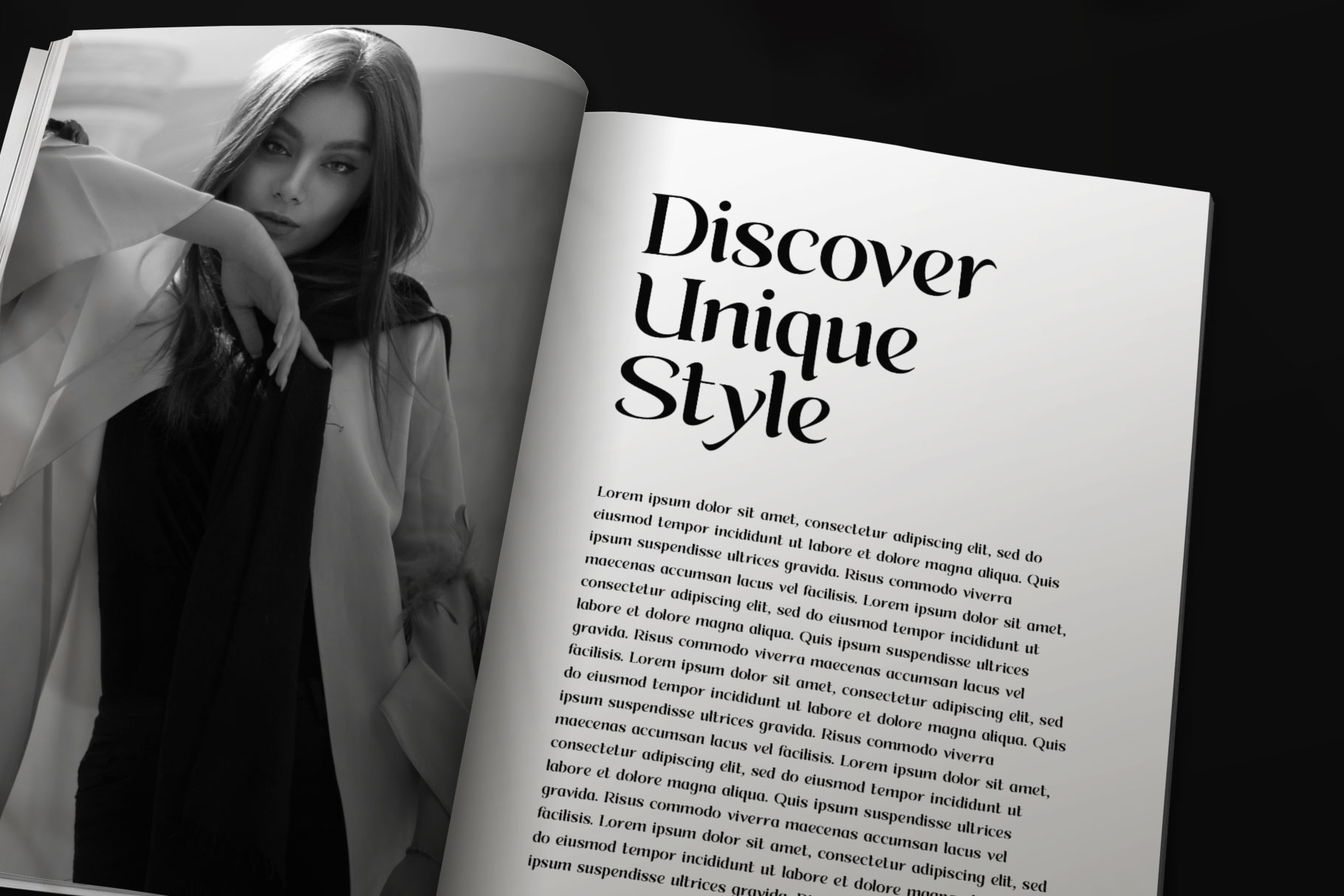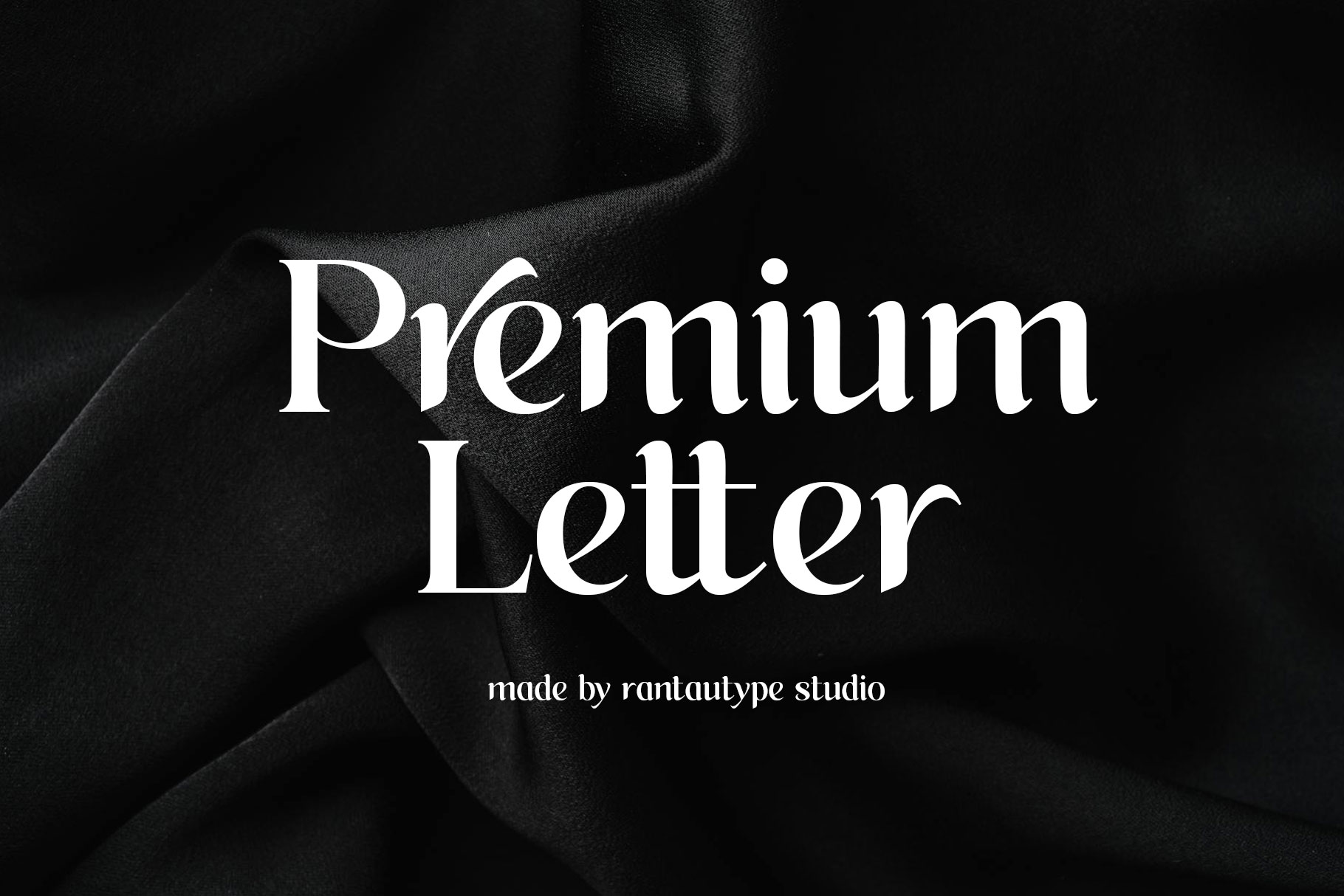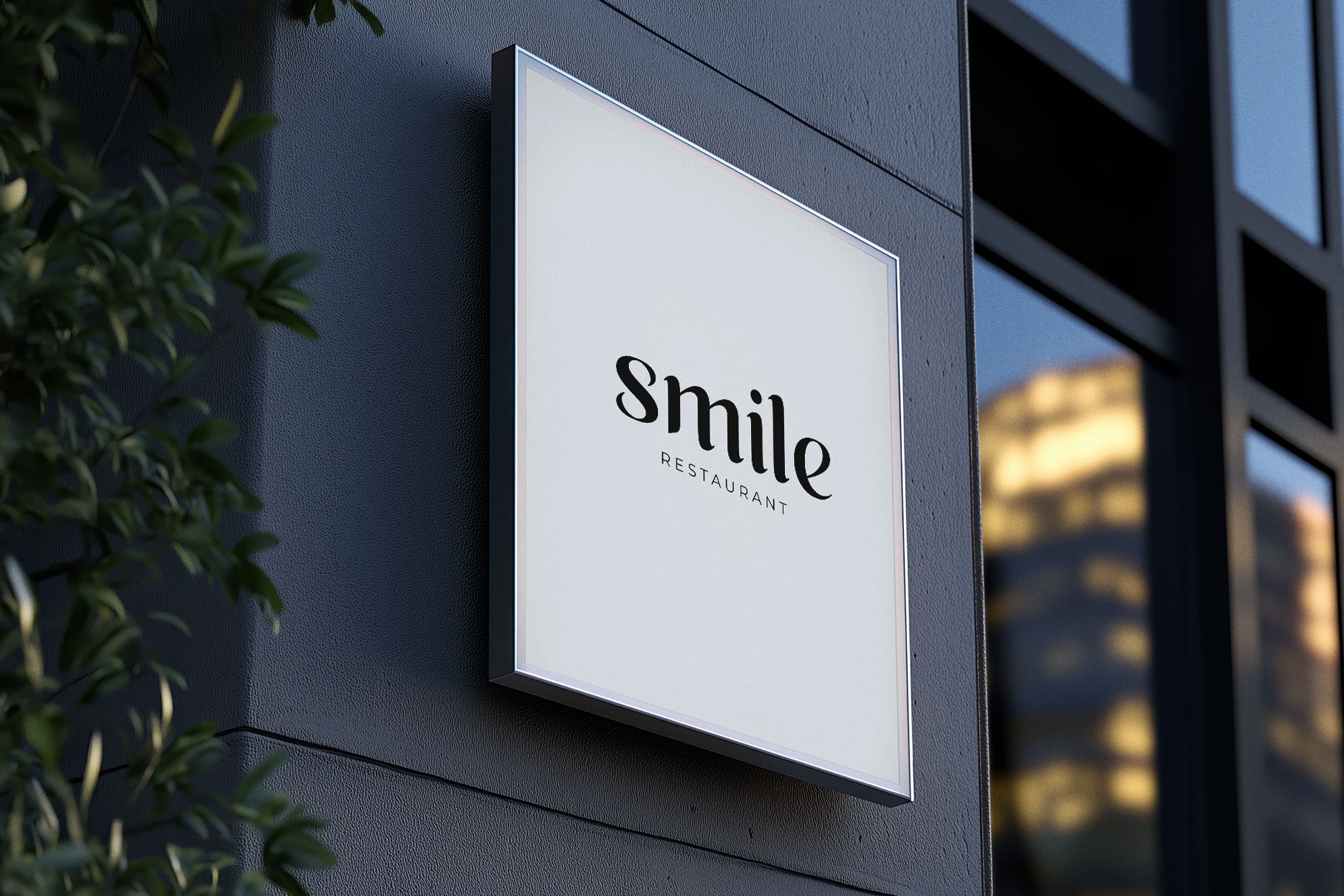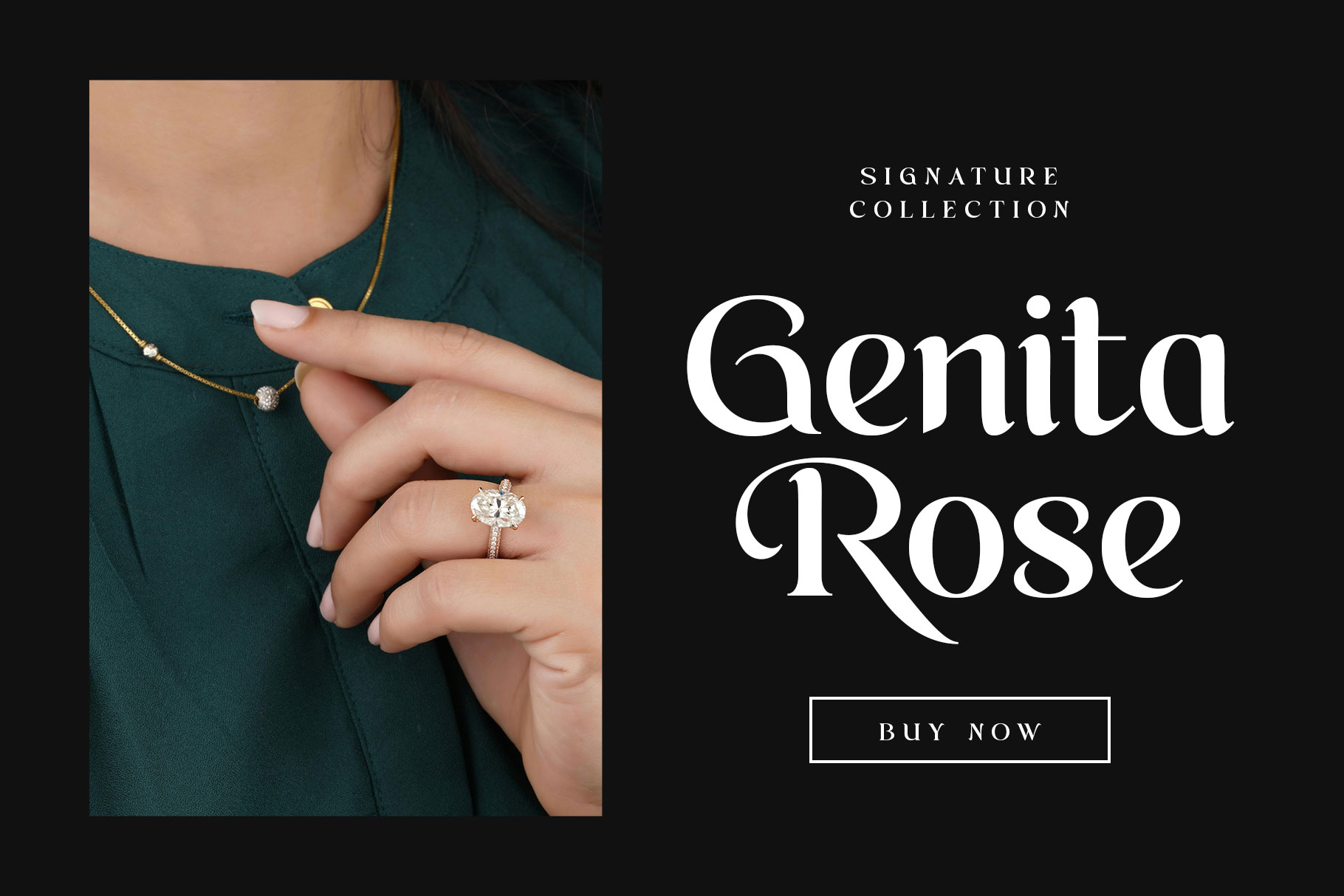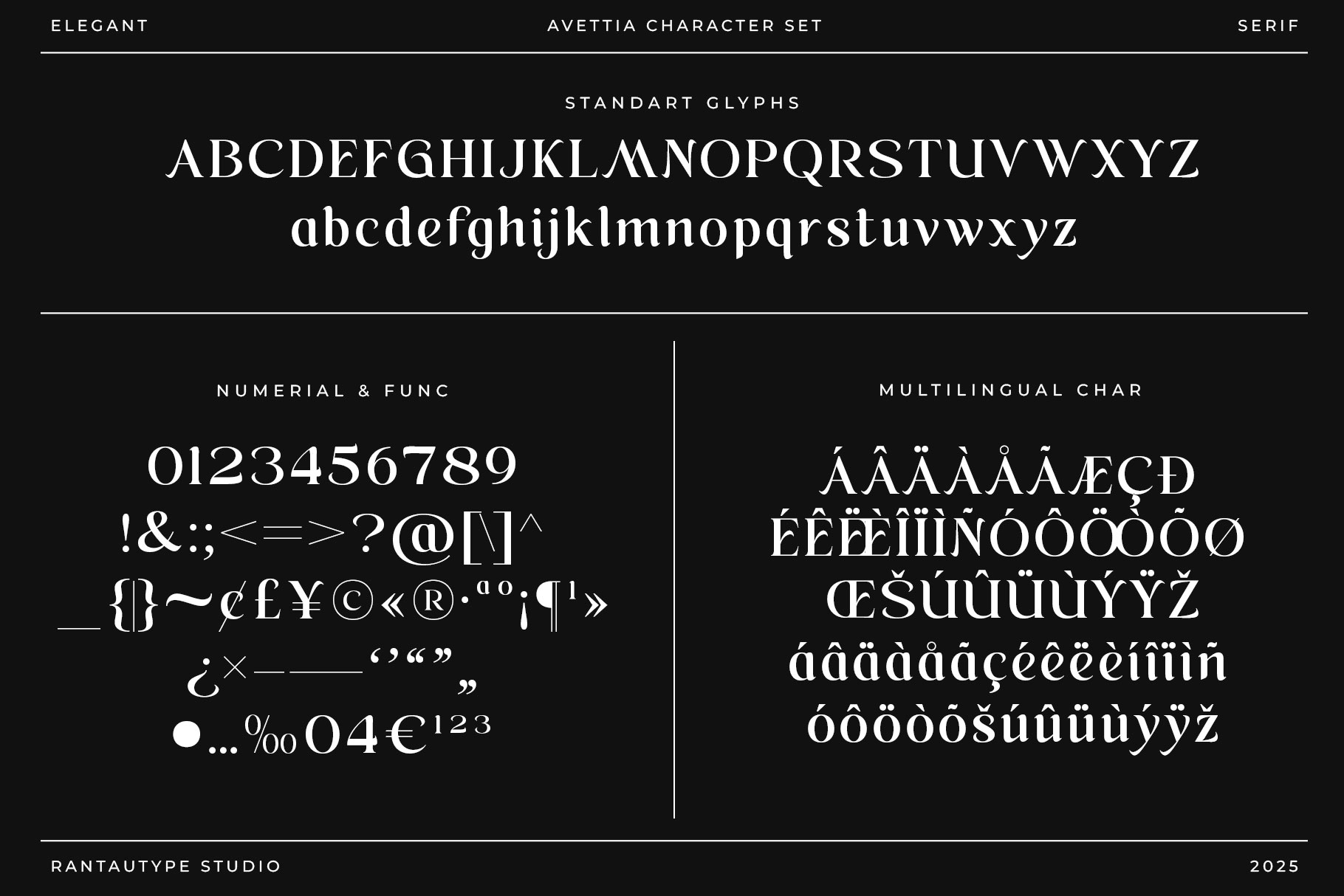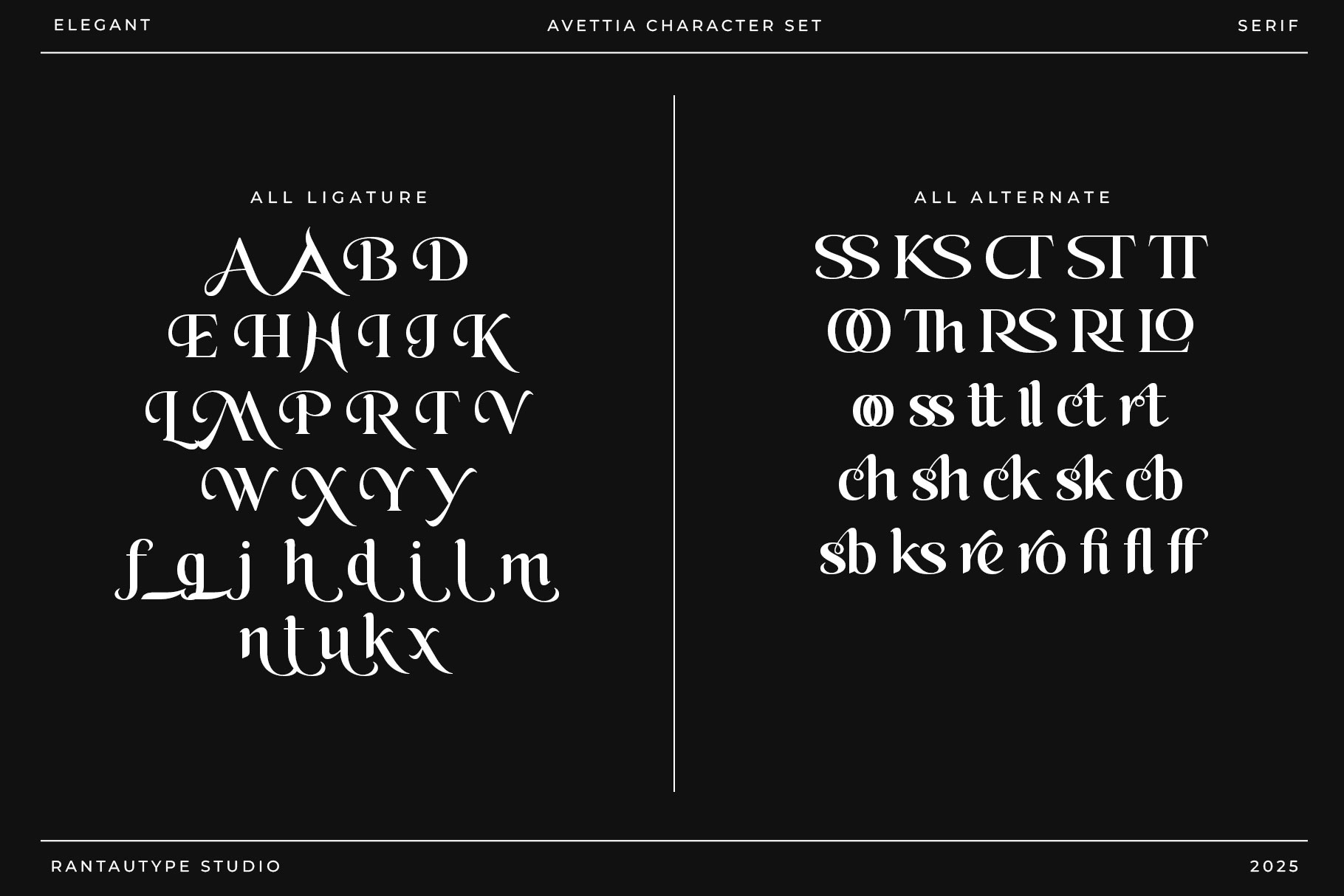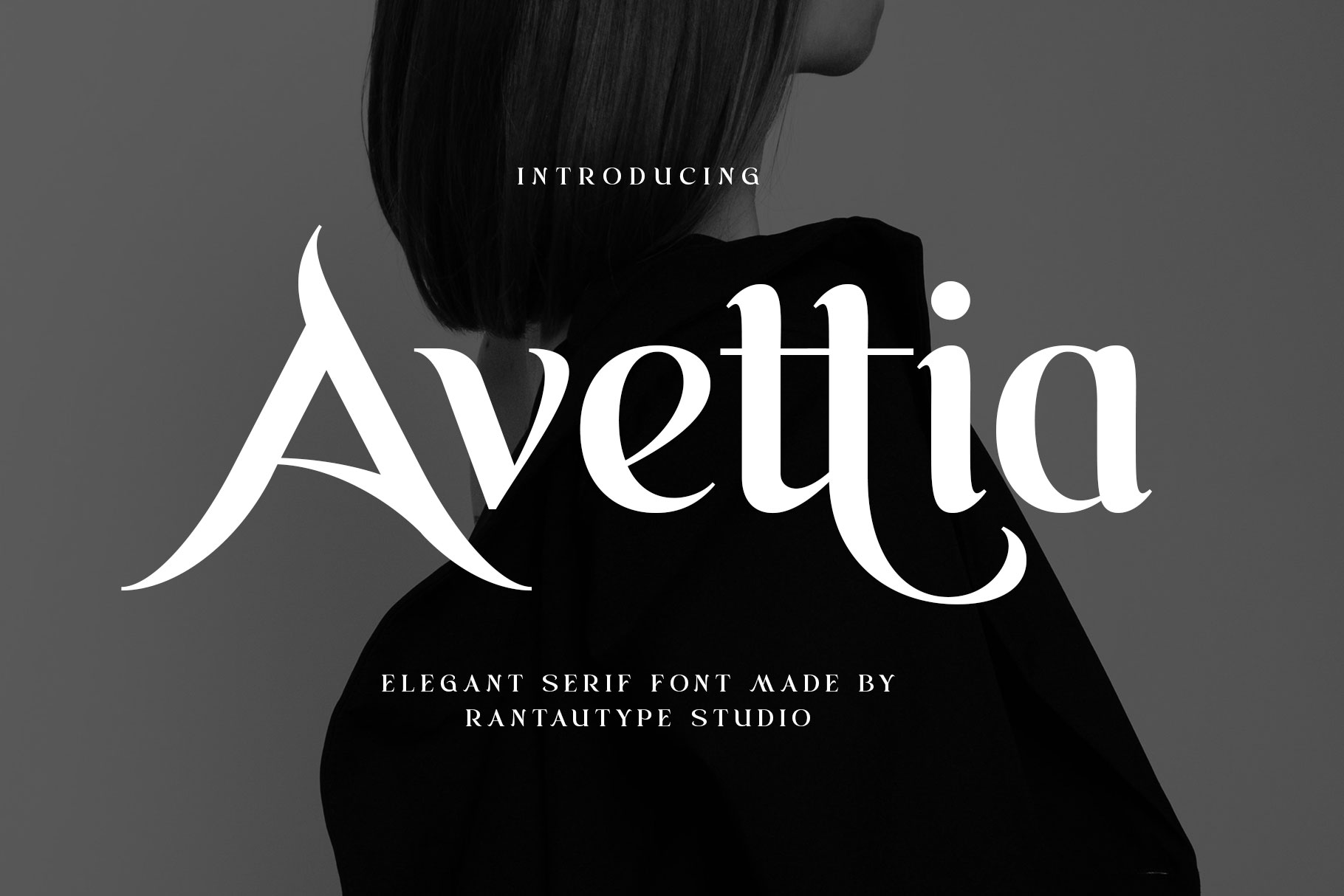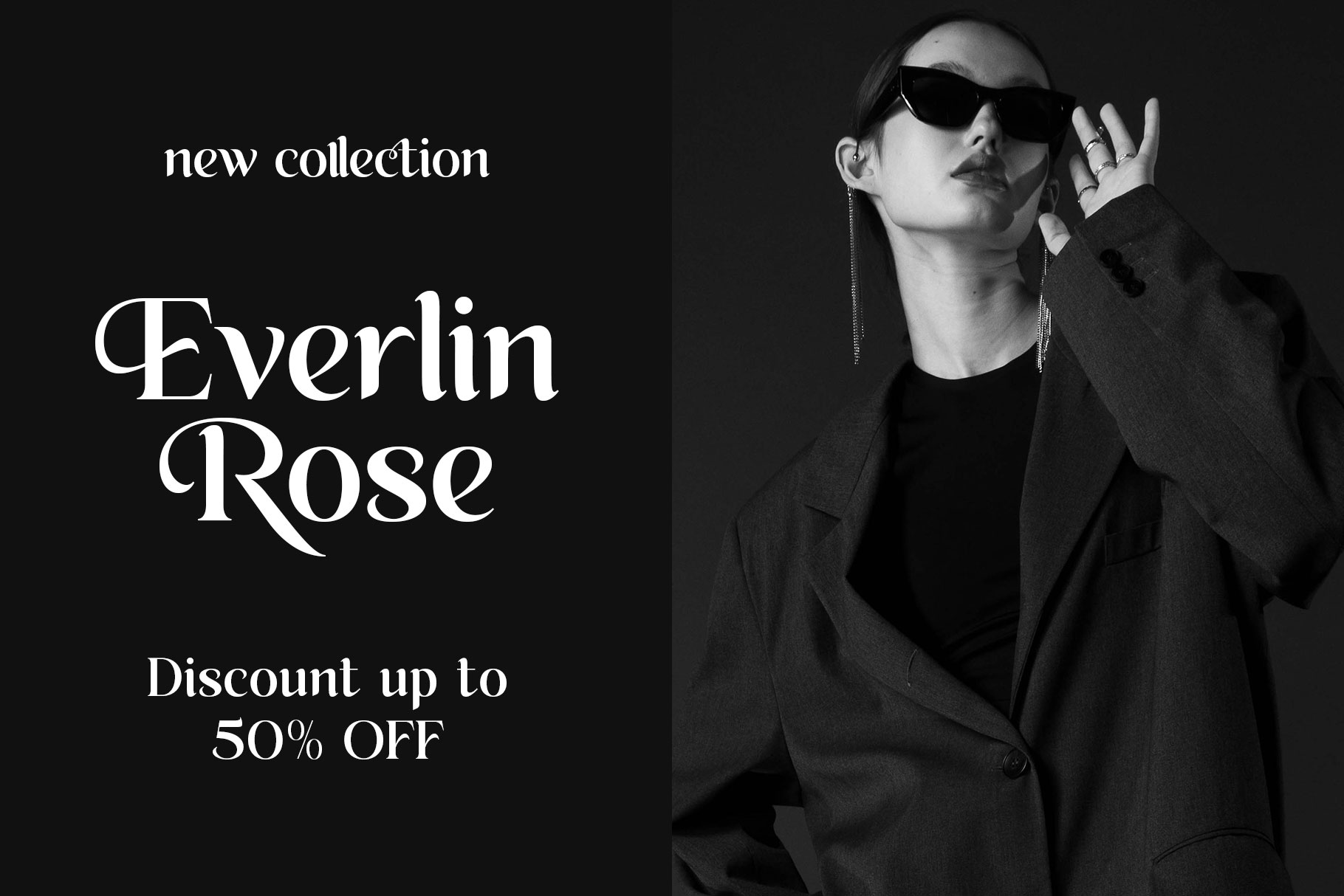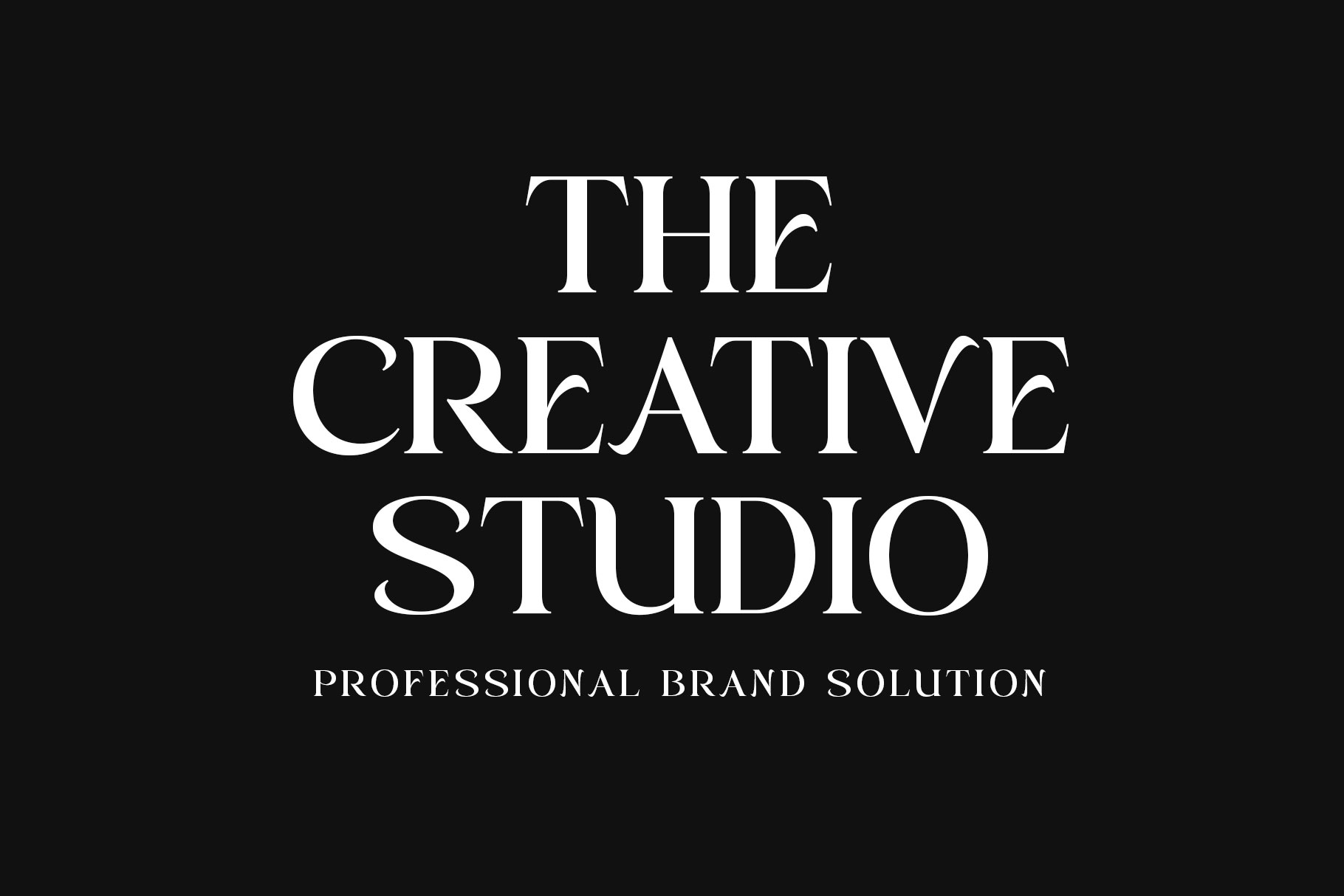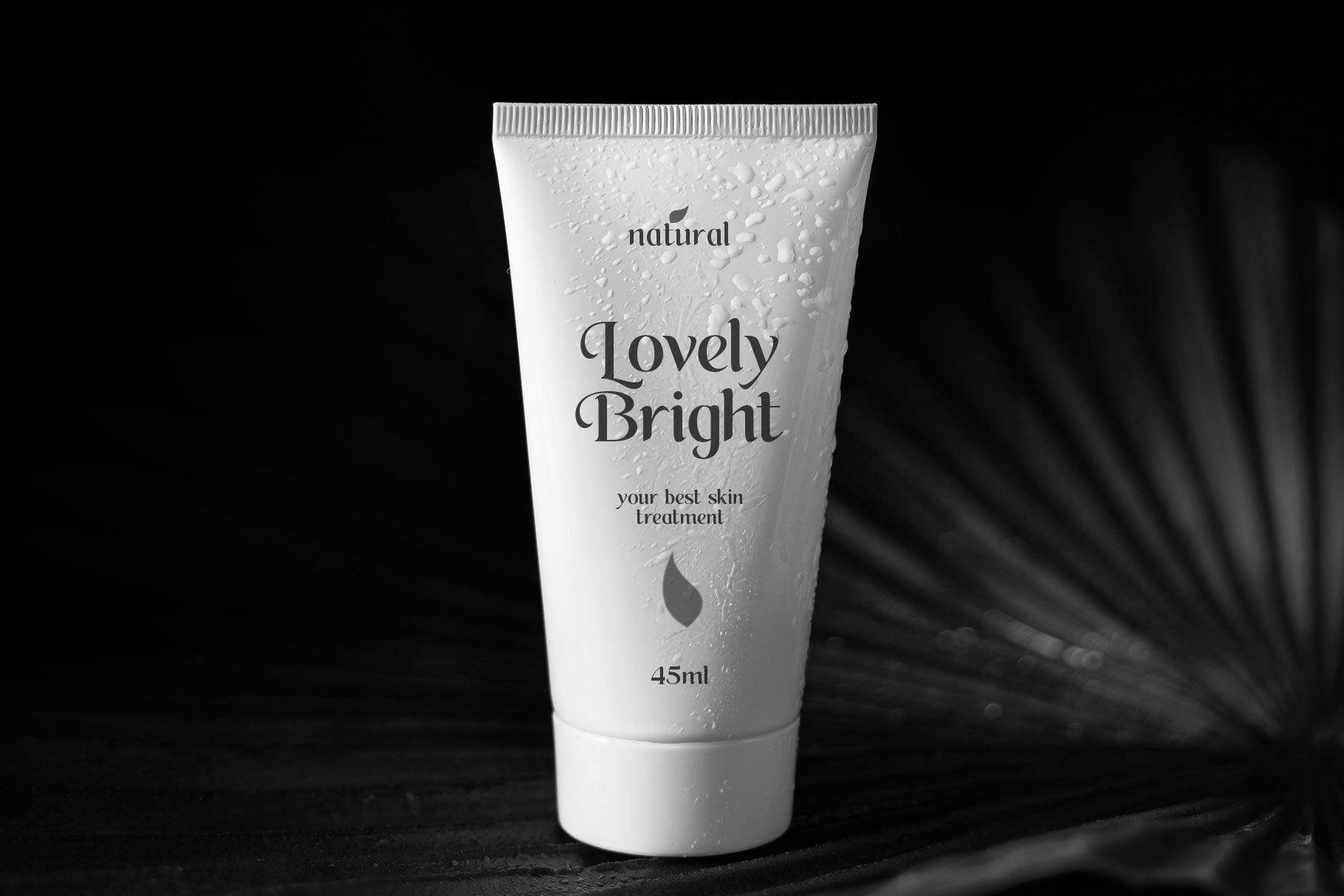
Avettia Elegant Serif Font
Avettia is elegant serif font made by rantautype studio. Aventtia bring grace and luxurious in typeface to make your design into next level. Avettia is a perfectly choice for any creative endeavor, creating, modern, lifestyle design such as logotype, title, cover, branding, invitations, wedding designs, display and magazine, social media posts, advertisements, printed quotes, product packaging, corporate brand, product designs, labels, photography, watermarks, special events and any other project with elegant touch.